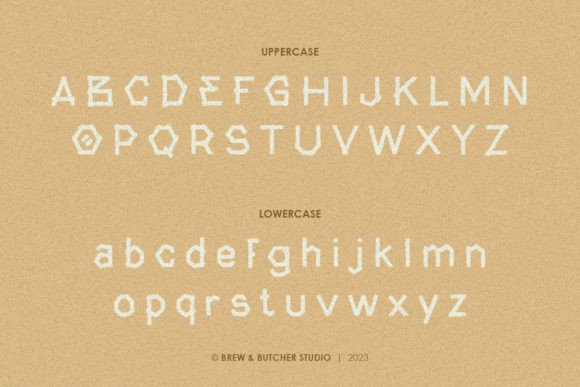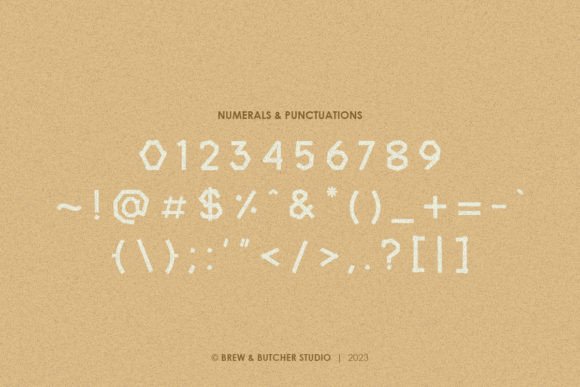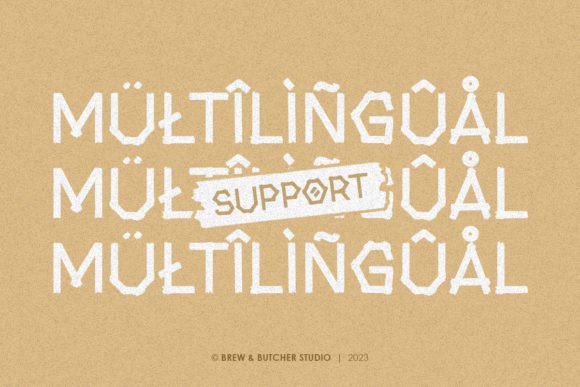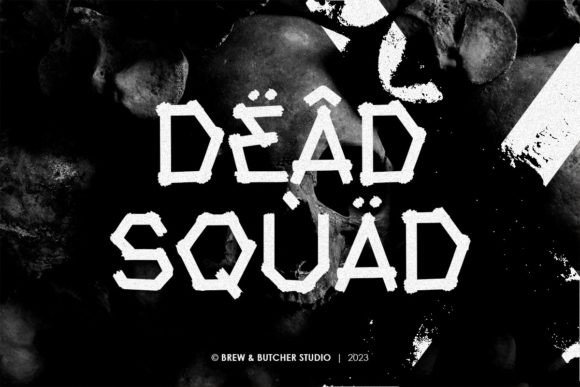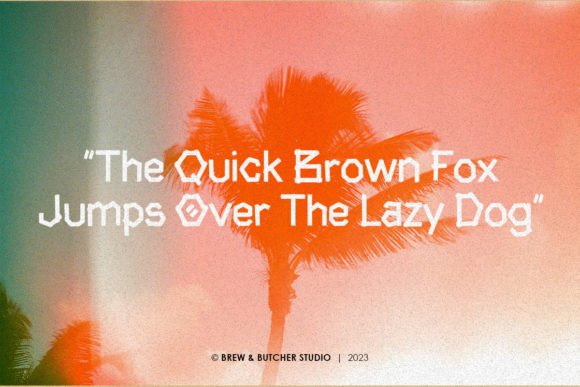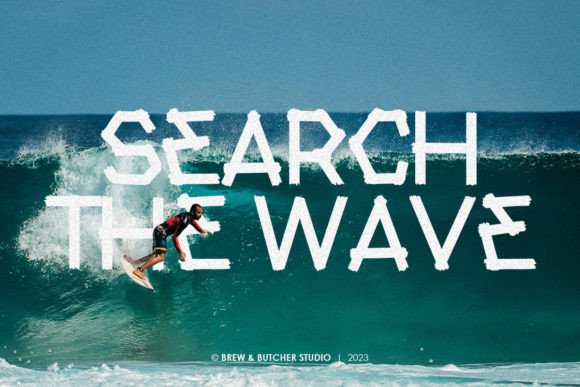
Introduction to Mooje Font
Mooje is a tape-inspired font.
With a stiff and firm style, it gives the impression of being sturdy and strong It has a unique and very interesting letter shape.
Key Features of Mooje Font